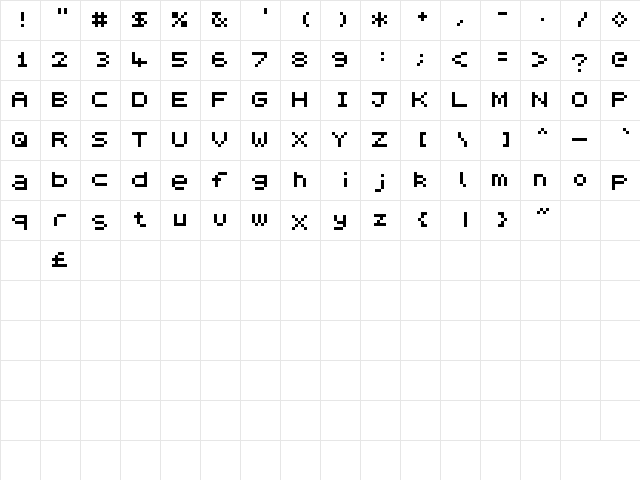
FiveByFive Regular
| Foundry | C.G. Johnson |
| Designer | C.G. Johnson |
Design Context for FiveByFive Typeface
FiveByFive is a composed and adaptable typeface that performs quietly and consistently across a wide range of design contexts.